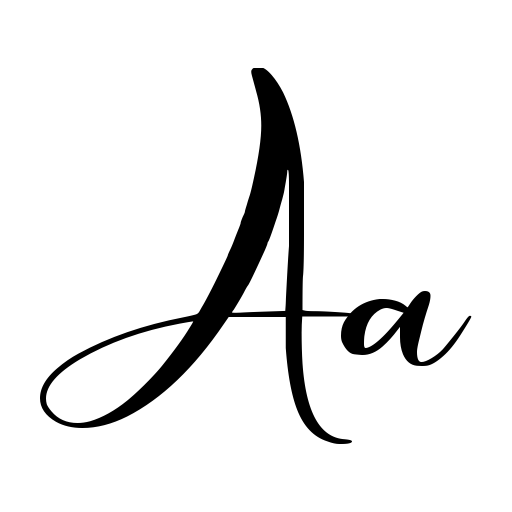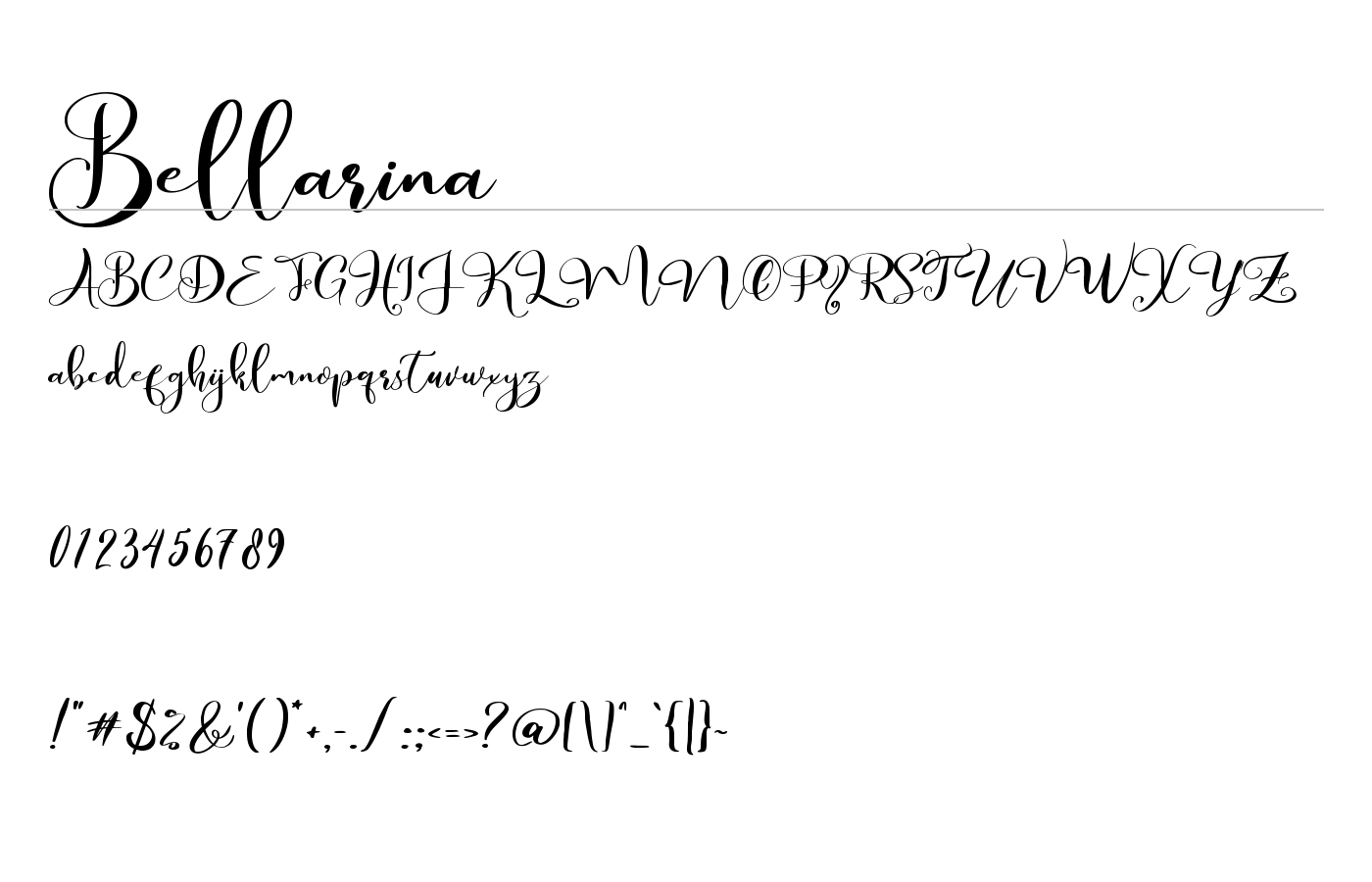
Bellarina is an elegant script font characterized by its flowing, decorative letterforms and delicate, high-contrast strokes that mimic elegant handwriting. Its ornate uppercase letters and graceful lowercase create a romantic and sophisticated mood, making it perfect for wedding invitations, luxury branding, and feminine editorial designs where a stylish and refined look is desired.
Bellarina Font
About Bellarina Font
| Font family | Bellarina Font |
| Designer | Aldedesign x Noftanti 2021 |